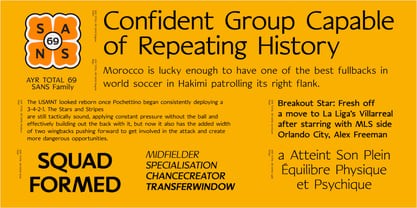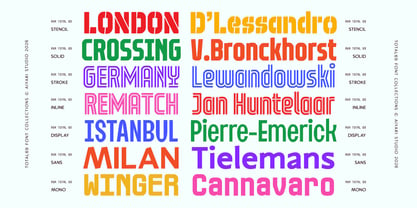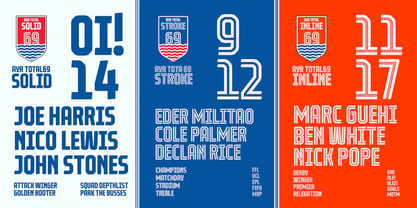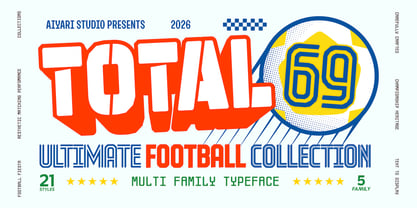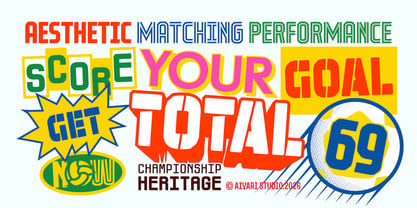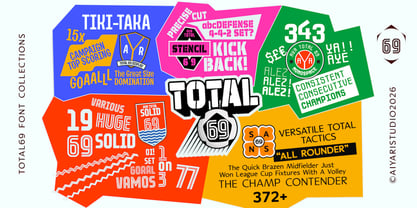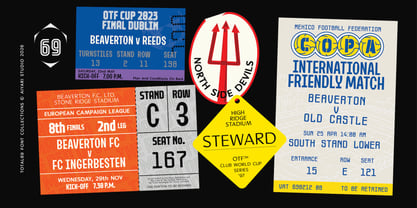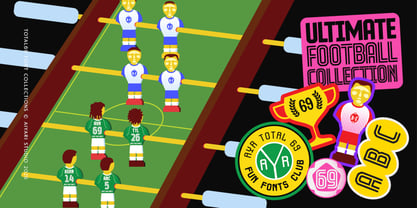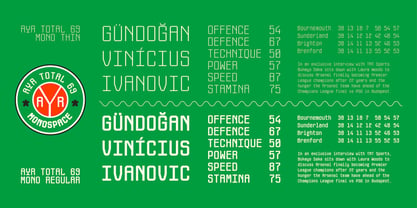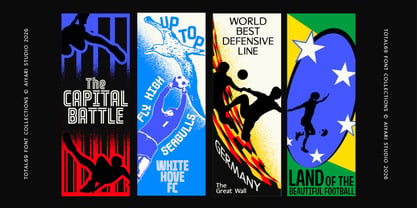
Total69
The Total69 Font Family was designed by Ricky Rinaldi, Aprian Sembada and published by Aiyari. Total69 contains 21 styles and family package options. More about this family
Total 69 is a five-family collection that plays the golden era of football on repeat the terrace chants, the matchday programs, the numbers stitched onto a legend's back.
Picture a scoreboard cut with a stencil knife, then a rounder, huskier sans stepping in to carry the commentary. Solid pulls double duty as kit numerals and crest-ready lettering, while the Monospaced set ticks along like a live stat feed every character locked to its own tidy square, Thin through Bold. It's the visual rhythm of a matchday program: bold above the fold, disciplined in the columns below.
Total 69 feels at home wherever nostalgia meets the pitch retro activewear tags, ticket stub reprints, club crest badges, poster drops for a derby that still gets talked about years later. It brings terrace-era warmth to projects that need to feel lived-in, not manufactured.
Twenty-one styles across five families give you real range without leaving the kit: Stencil and Display for the shout it from the stands headlines, Solid's Regular/Inline/Stroke trio for crest and numeral work, a four-weight Monospaced set built for data-heavy layouts, and a twelve-style Sans — Thin through Bold, each with a matching italic for the long-form storytelling underneath.
Total 69 covers 200+ Latin-based languages, with full punctuation, numerals, and symbol support across every style in the collection.